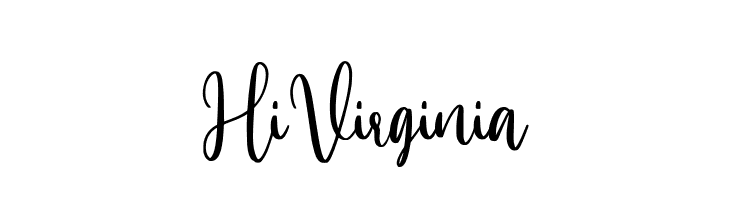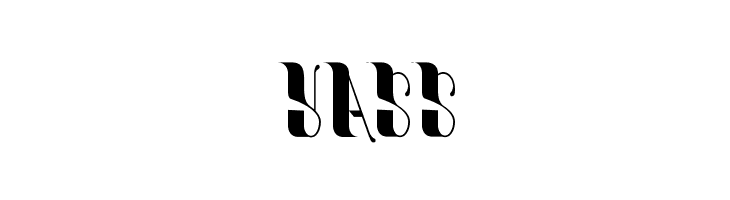
A tall, slender font with a modern and elegant style.
A classic serif font with bold strokes and elegant curves, exuding timeless elegance.
A bold, angular font with a historical and dramatic style.
A bold, 3D expanded font with a futuristic and geometric style.
An elegant script font with flowing, high-contrast strokes and graceful swashes.
A fluid and elegant handwritten font with a natural cursive style.
A playful, handwritten font with a whimsical and dynamic style.
A whimsical, curly handwritten font with playful loops and dynamic strokes.
A bold, futuristic font with a halftone effect and geometric design.
A modern, textured font with a mesh-like pattern and rounded, condensed characters.